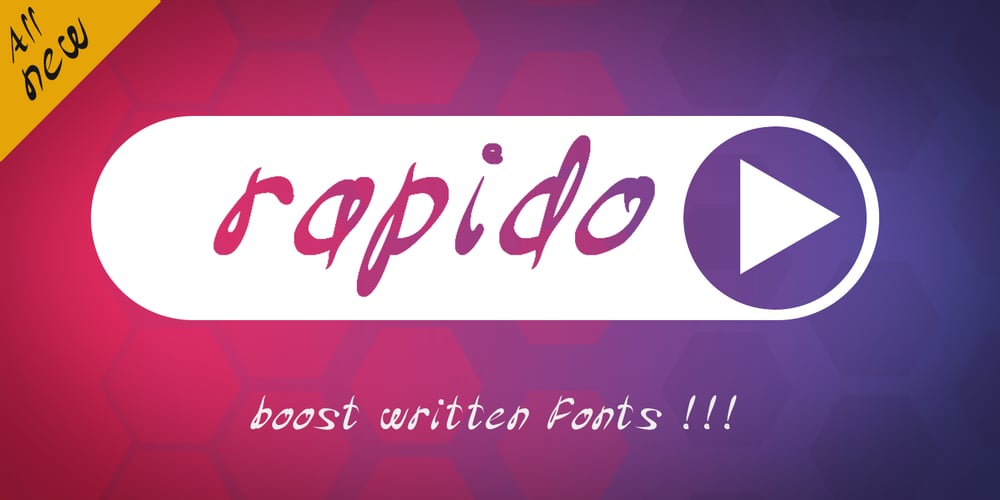
Rapido Font Family was designed by Akufadhl and published by Typestation. Rapido contains 3 styles and family package options. Rapido is a kind of Italic hand lettering typeface. We designed it with the phenomenon of writing fast and perfect cutting edges. Rapido is available in Light, Regular and Ultra Bold weights to make your work look perfect at various movements. Rapido will work best on magazines/ menus/ books quotes and everything you’re gonna initiate.